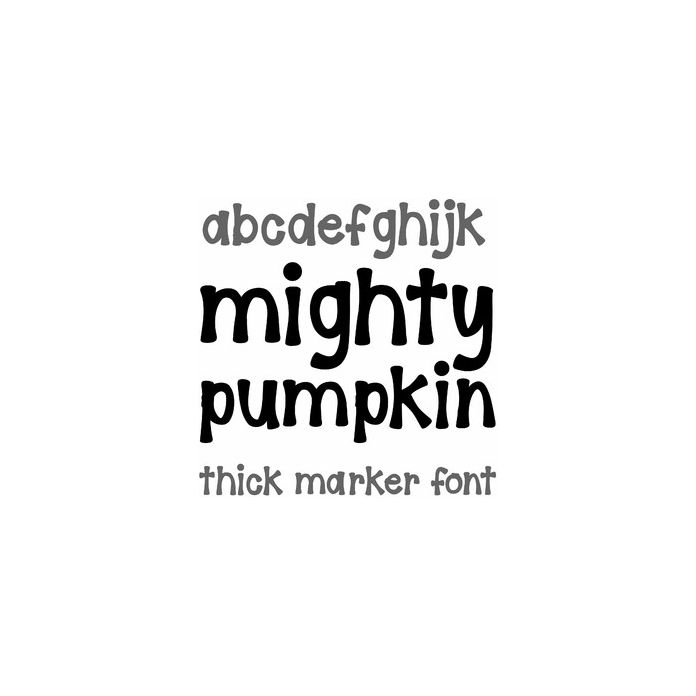
Cute and bold, Mighty Pumpkin is a fun bold handwriting marker font for crafting, cards, coffee mugs, projects, and personalizing. Includes alphabet, numbers, and punctuation.